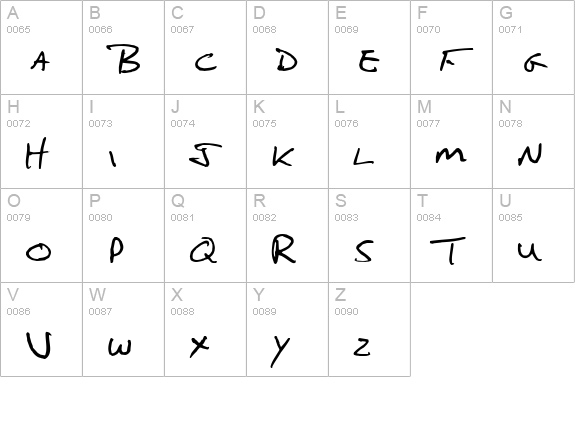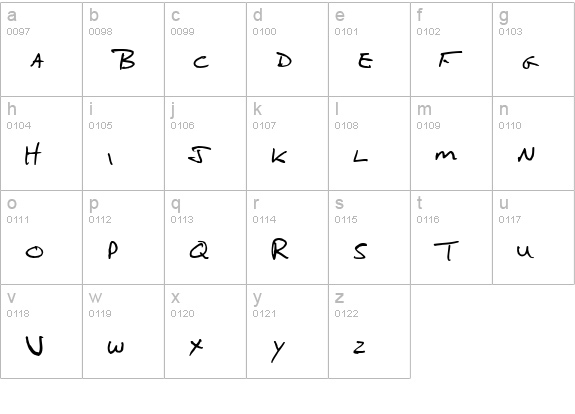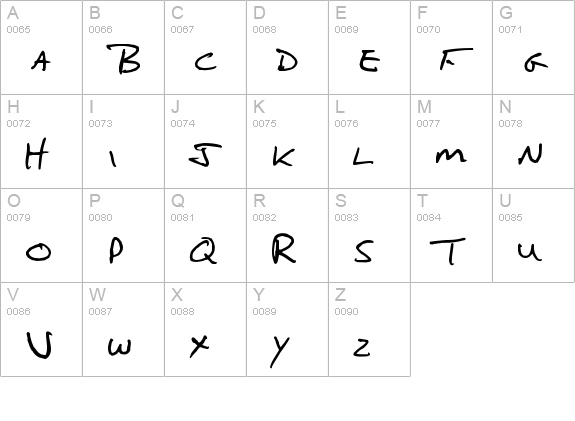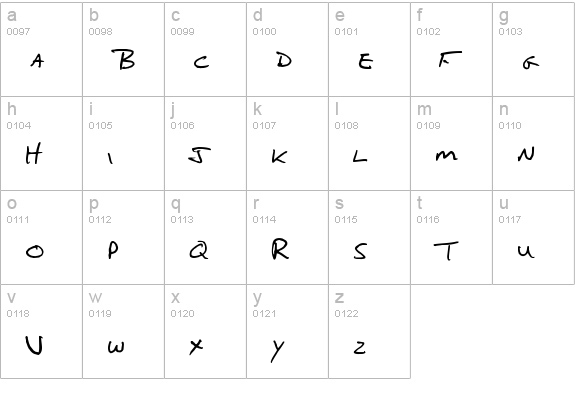
Neil Normal Font Details
Neil Normal is the standard, neutral variant in the Neil typeface family \xE2\x80\x94 well suited to general body text, paragraphs, and standard typographic work.
Introducing Neil Normal font, a versatile and modern typeface that is perfect for a wide range of design projects. With its clean lines and classic appeal, Neil Normal is sure to make your text stand out with a touch of elegance. This font is ideal for use in branding, advertising, editorial design, and more. What's even better is that Neil Normal font is completely free to download at FontsMarket.com. So you can easily enhance your designs with this stylish and professional font without breaking the bank. Don't miss out on this opportunity to add Neil Normal to your font collection and take your projects to the next level.